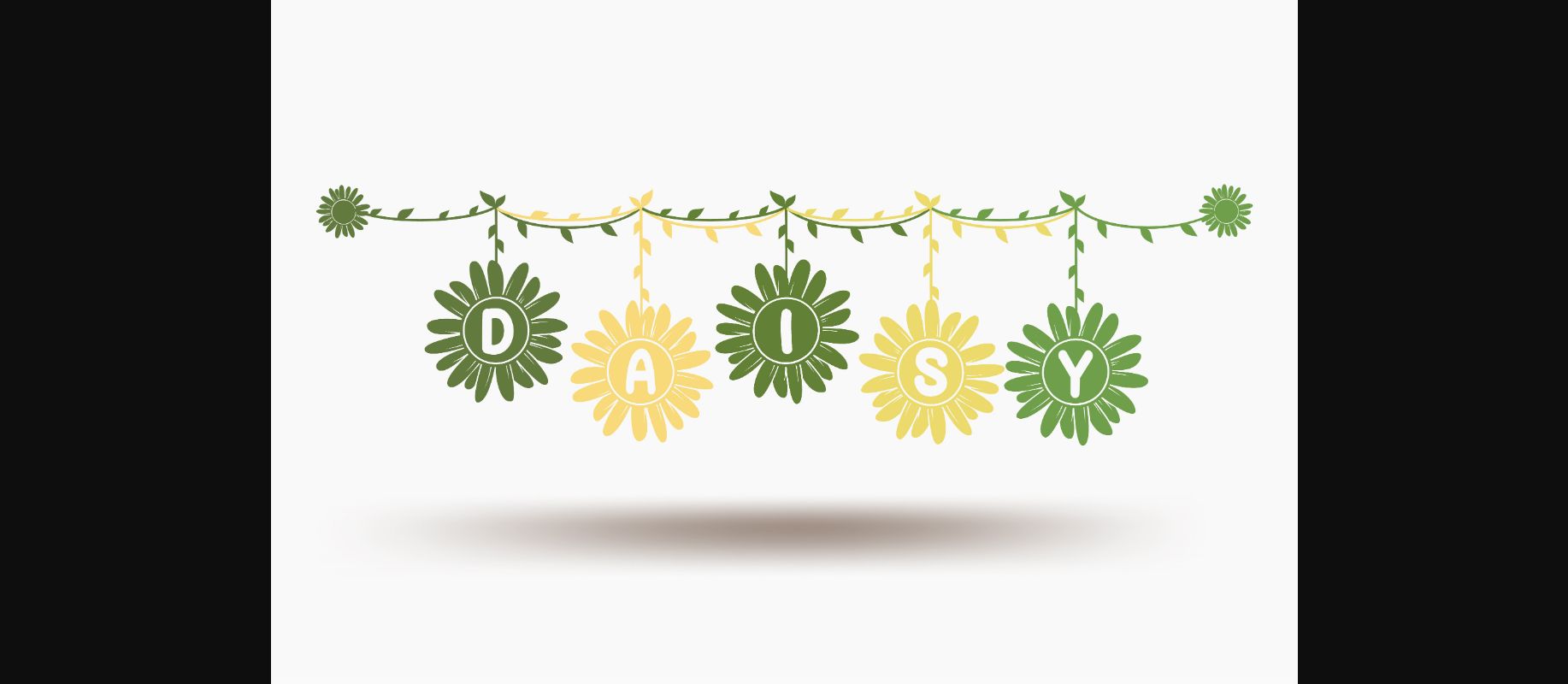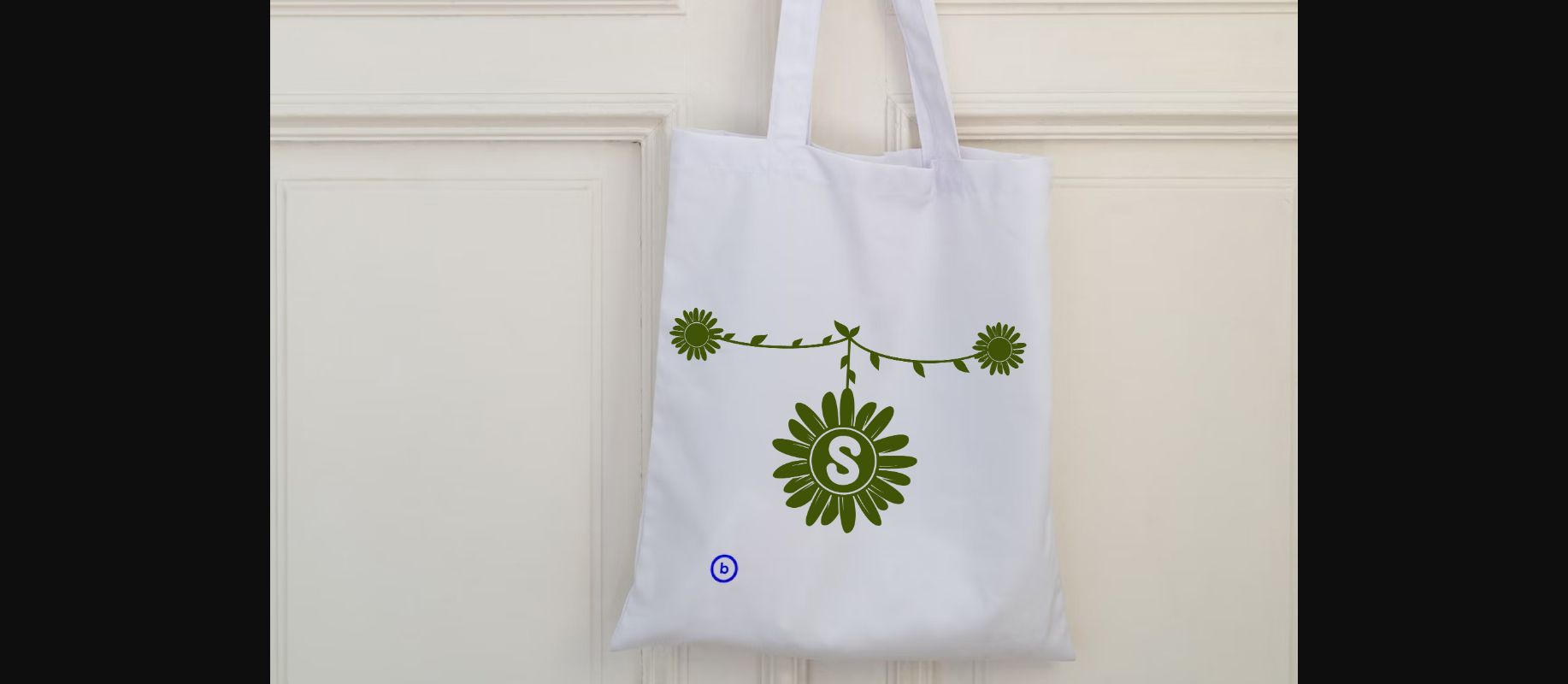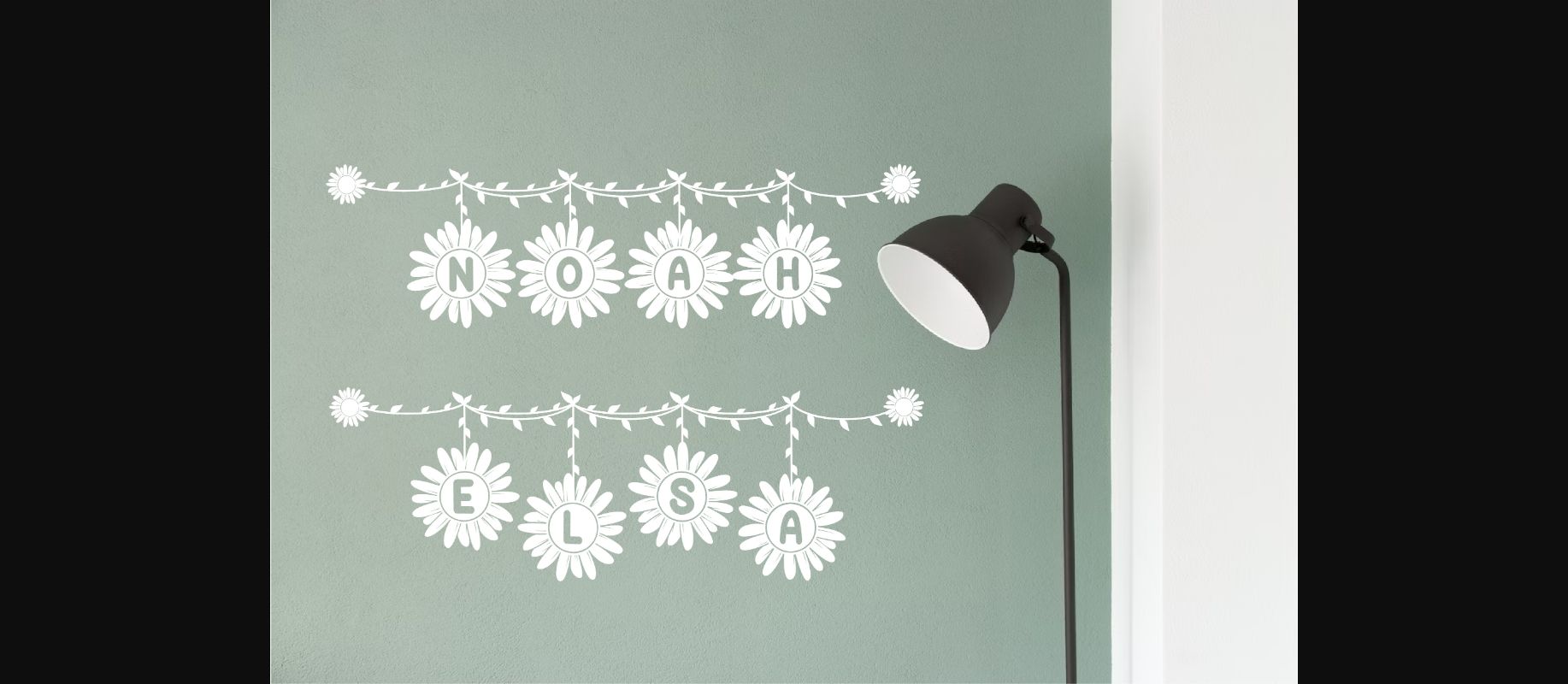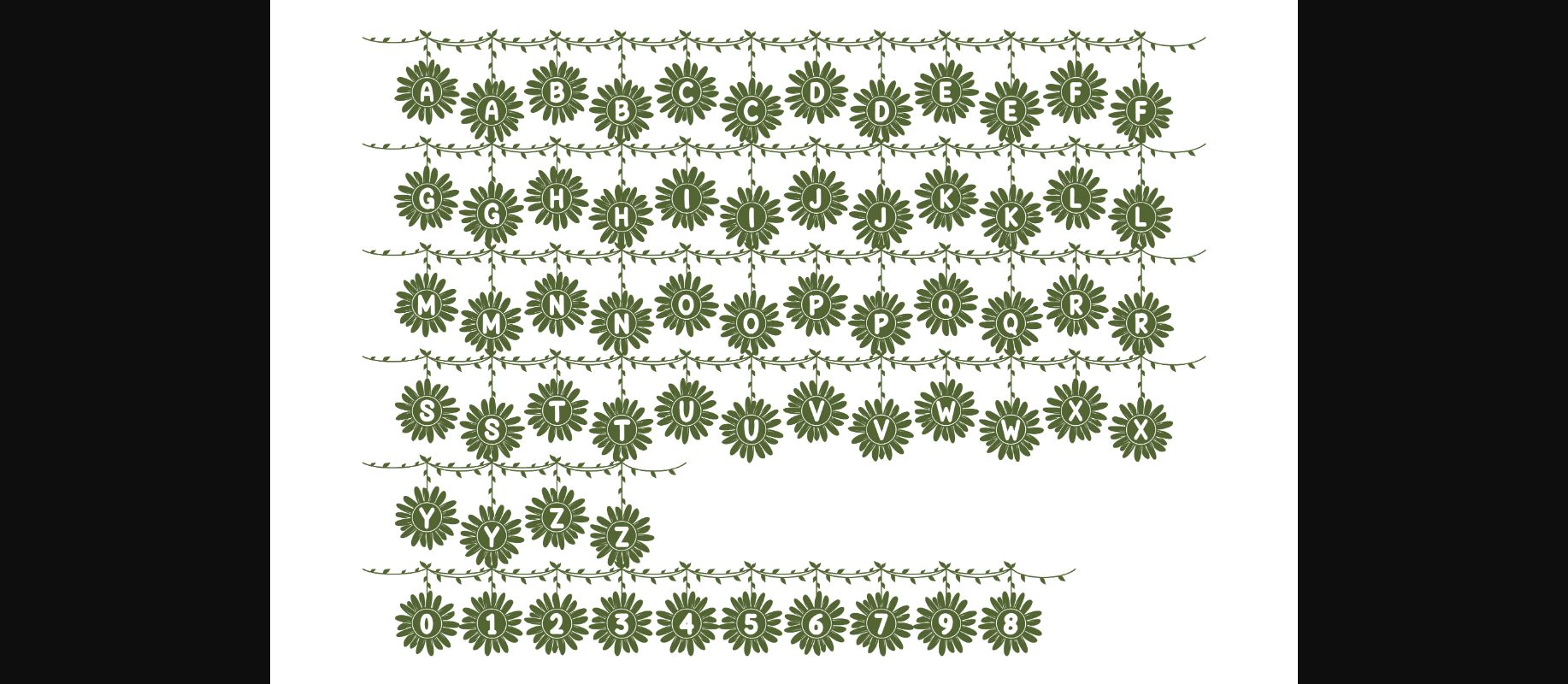
About Daisy Link Font
Daisy Link a cute decorative font, adding a touch of natural elegance to your designs. This whimsical typeface infuses a sense of playfulness and creativity, making it the perfect choice to evoke freshness and charm in your design.